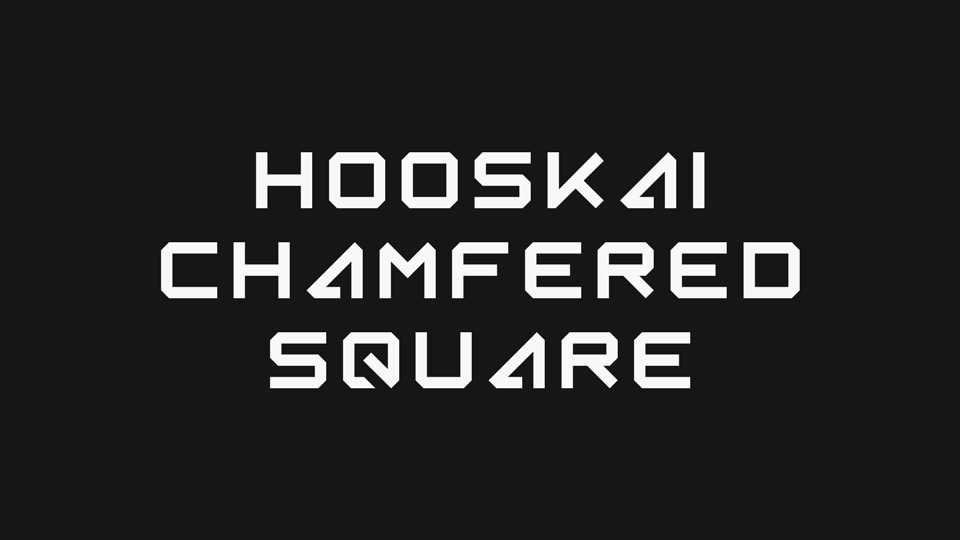
Download Hooskai Chamfered Square font, a square-shaped display font with chamfered edges that adds a touch of modern geometry and sophisticated edge to your designs.